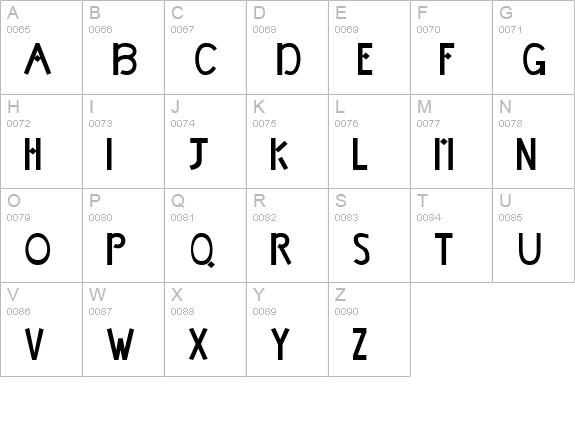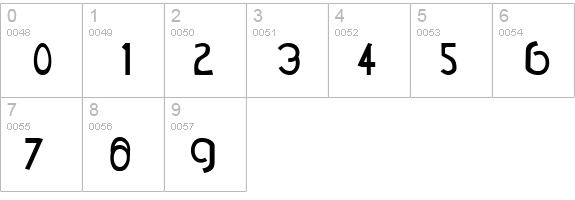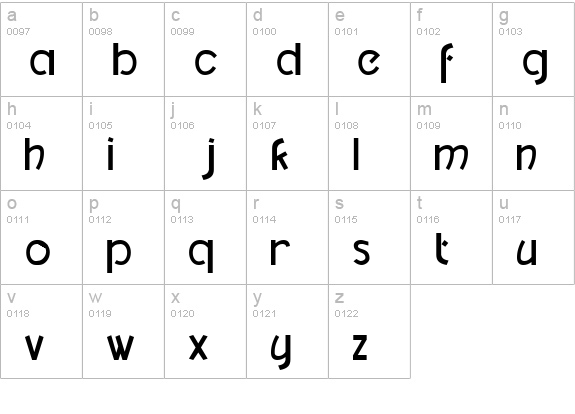
TM DCC Normal Font Details
TM DCC Normal is the standard, neutral variant in the TM typeface family \xE2\x80\x94 well suited to general body text, paragraphs, and standard typographic work.
Introducing TM DCC Normal font, a versatile and modern typeface that is perfect for various design projects. With its clean and legible appearance, TM DCC Normal font offers an excellent balance between professionalism and creativity. This font is the epitome of elegance, featuring smooth and well-defined characters that effortlessly capture attention. Whether you are designing a website, creating a logo, or crafting eye-catching headlines, TM DCC Normal font will help you make a lasting impression. One of the best features of TM DCC Normal font is that it is freely available to download at FontsMarket.com. This means that you can easily access this incredible font without any hassle. With just a few clicks, you can enhance your design projects with the beauty and sophistication that TM DCC Normal font brings. Versatility is another aspect that makes TM DCC Normal font stand out. It is suitable for a wide range of applications, from print materials such as brochures and flyers to digital designs like social media posts and banners. The clarity and readability of this font make it a reliable choice for both small and large text sizes. With TM DCC Normal font, you have the freedom to explore your creativity and bring your design ideas to life. Its timeless appeal and contemporary aesthetic make it a go-to choice for designers and creatives alike. So why wait? Download TM DCC Normal font today and elevate your design projects to new heights.